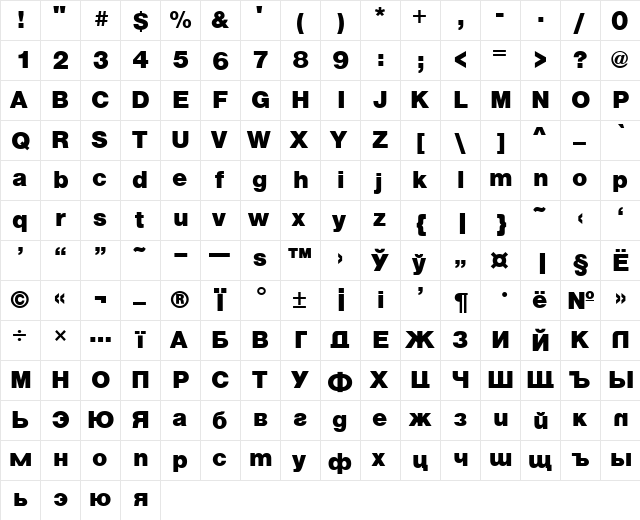
Vanta Fat Plain
Design Context for Vanta Fat Typeface
Vanta Fat is a composed and adaptable typeface that performs quietly and consistently across a wide range of design contexts.